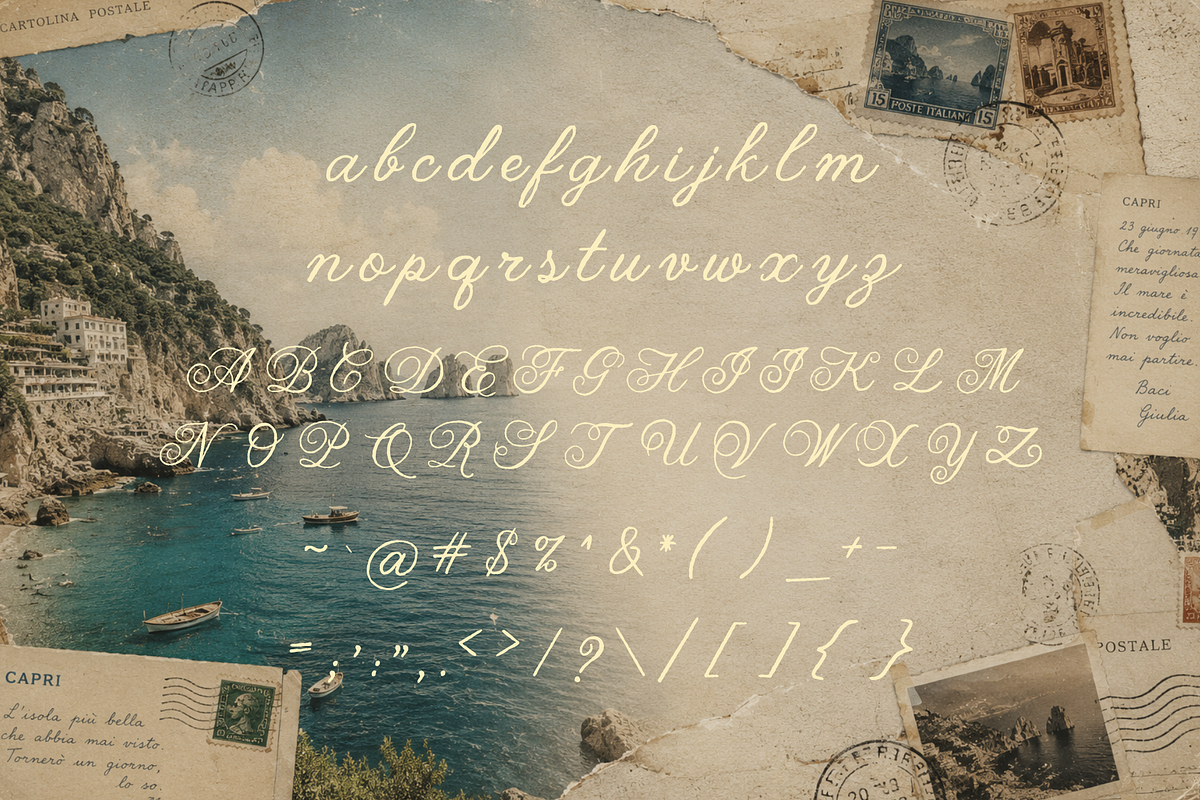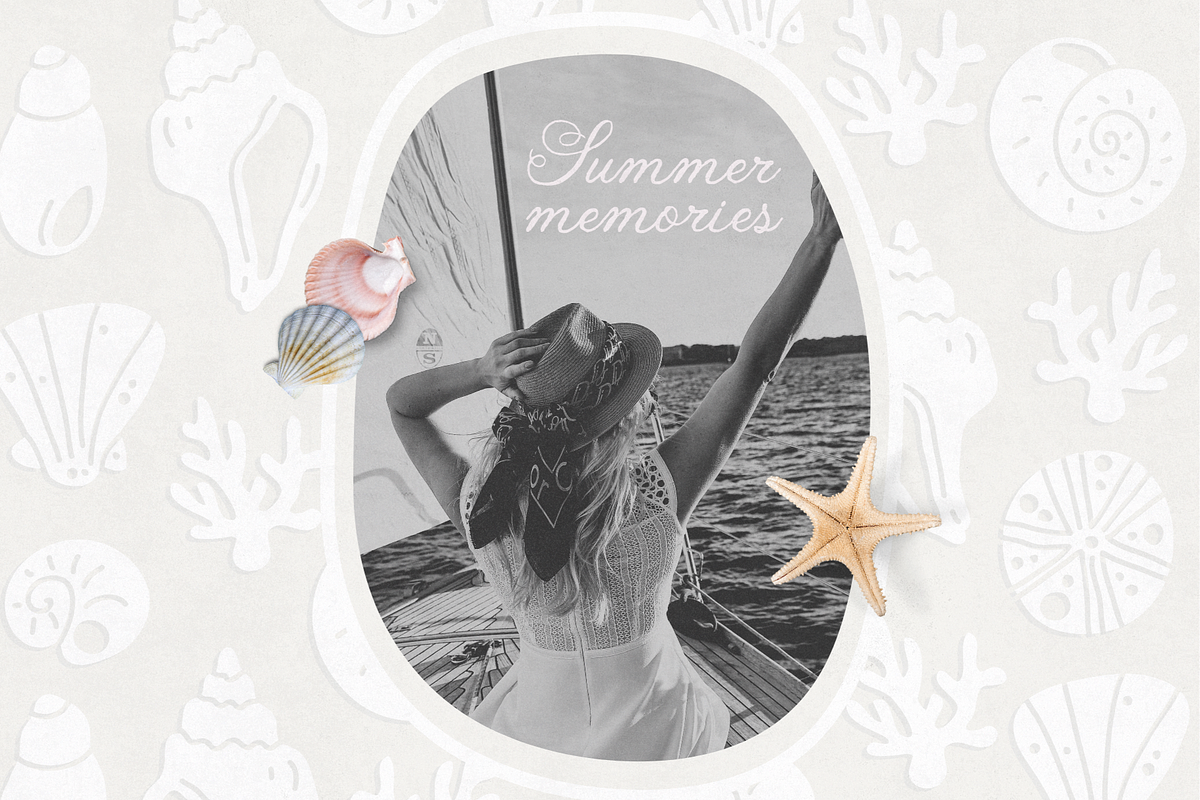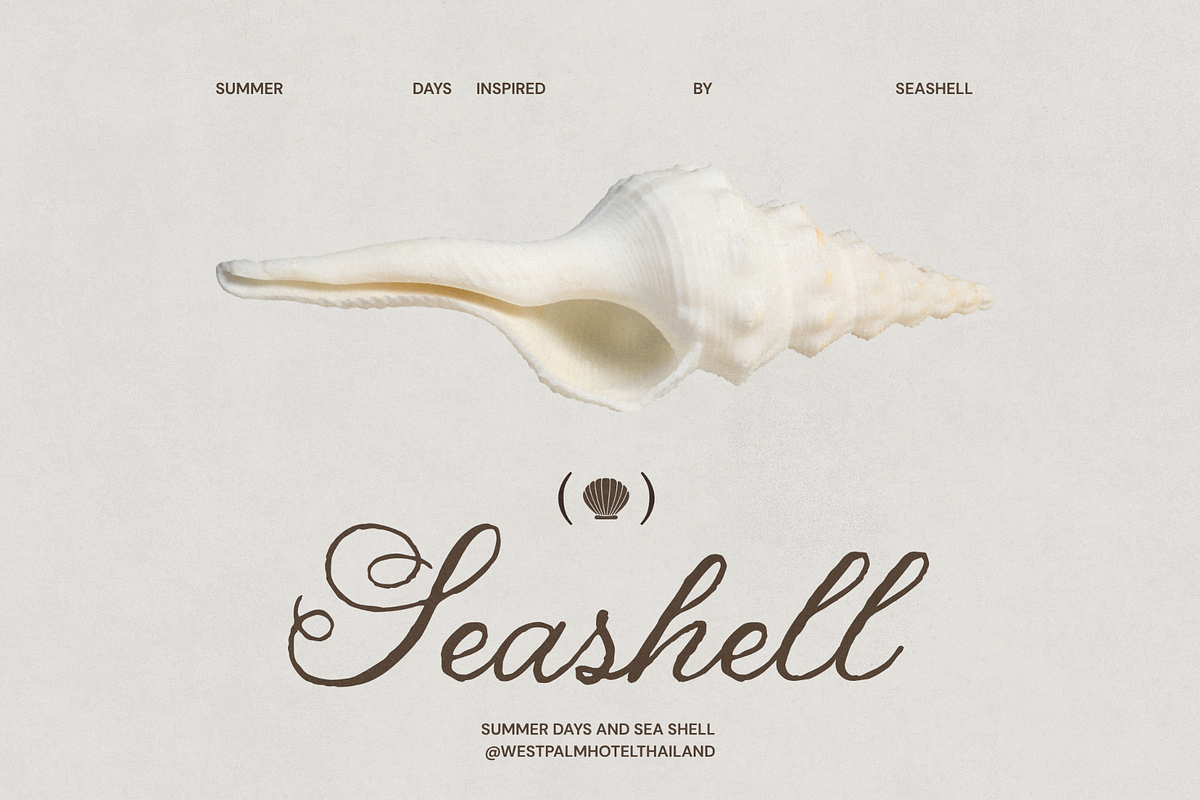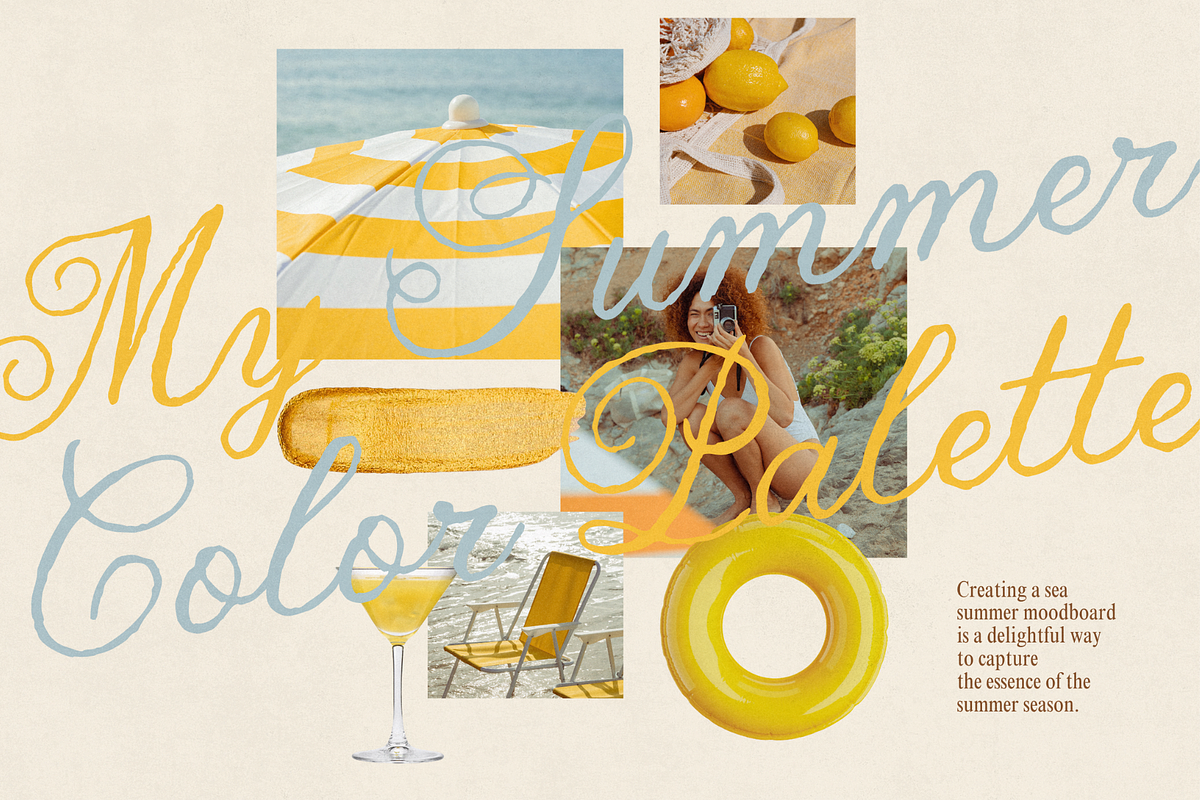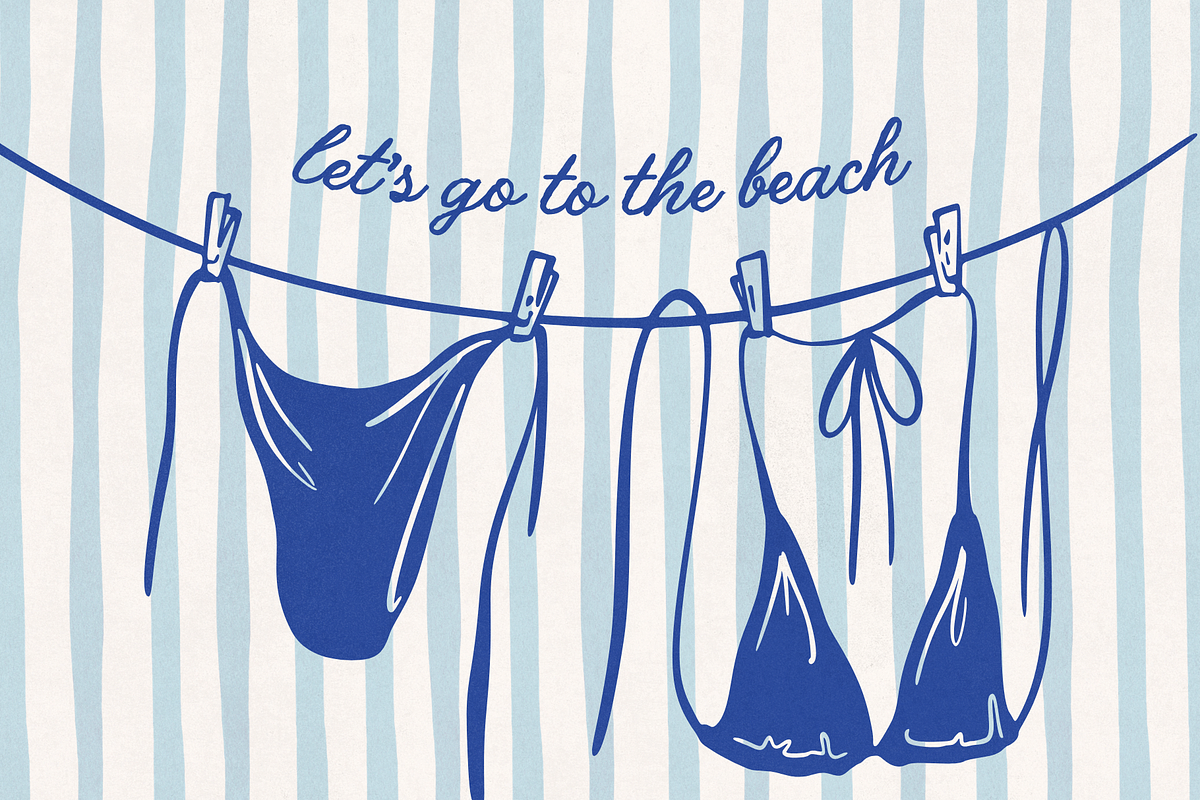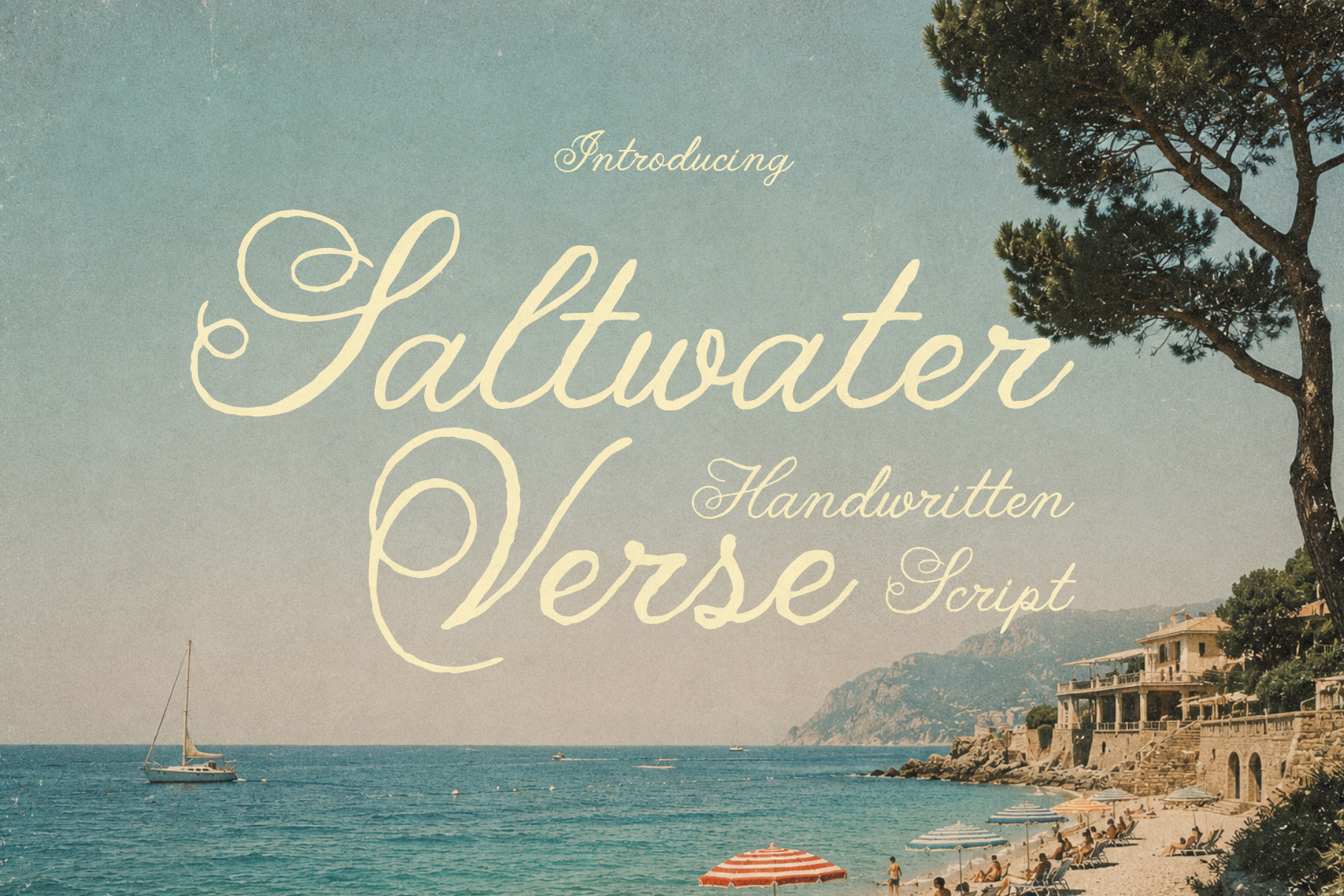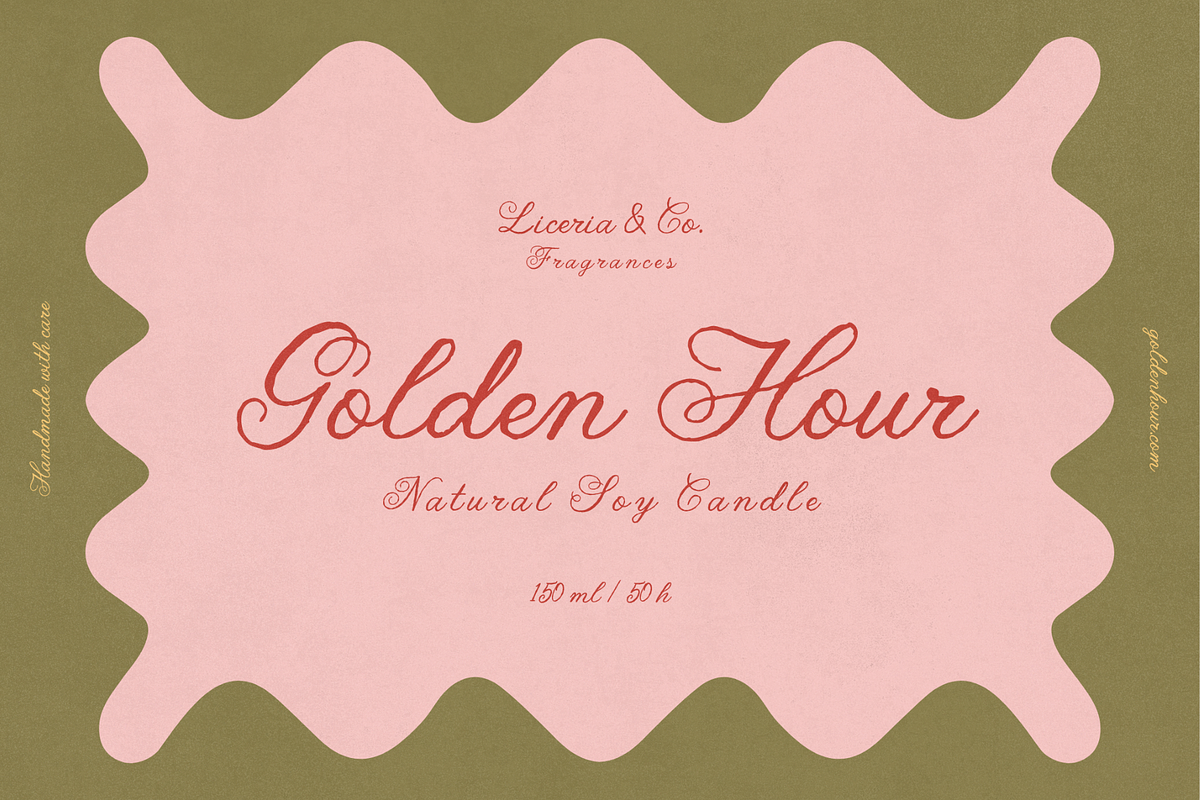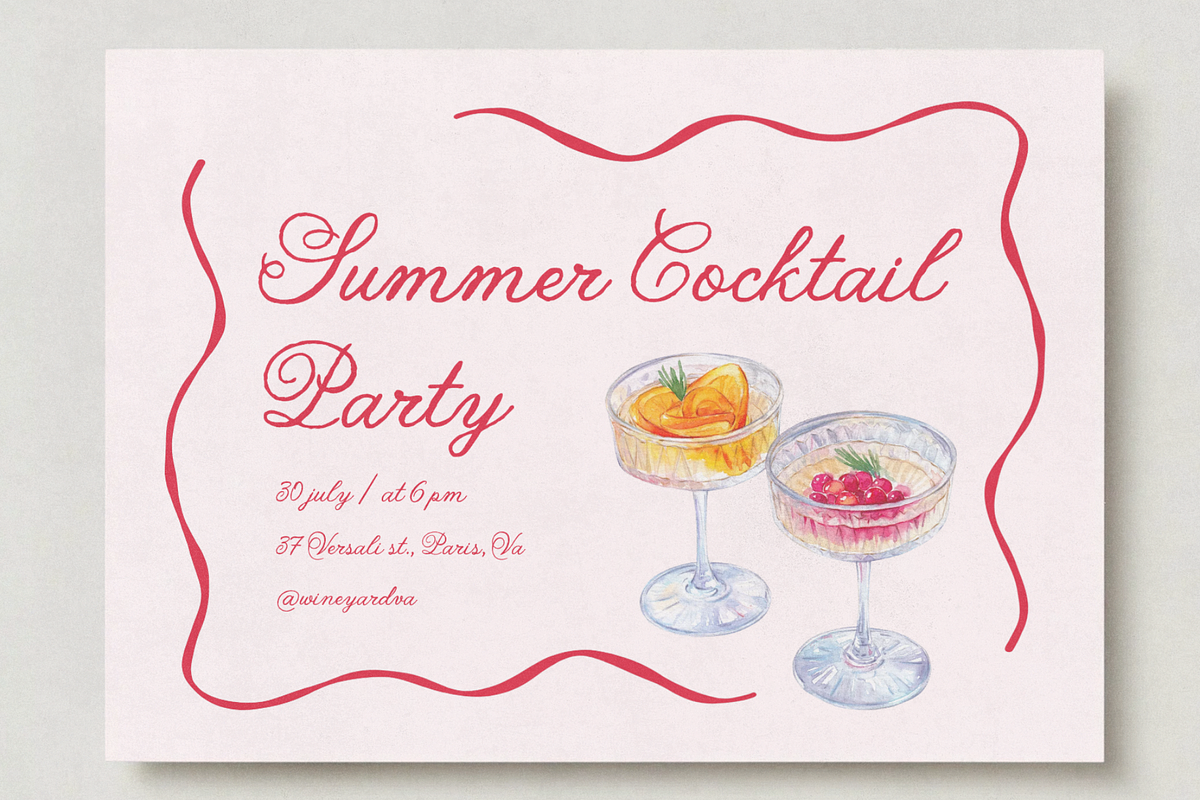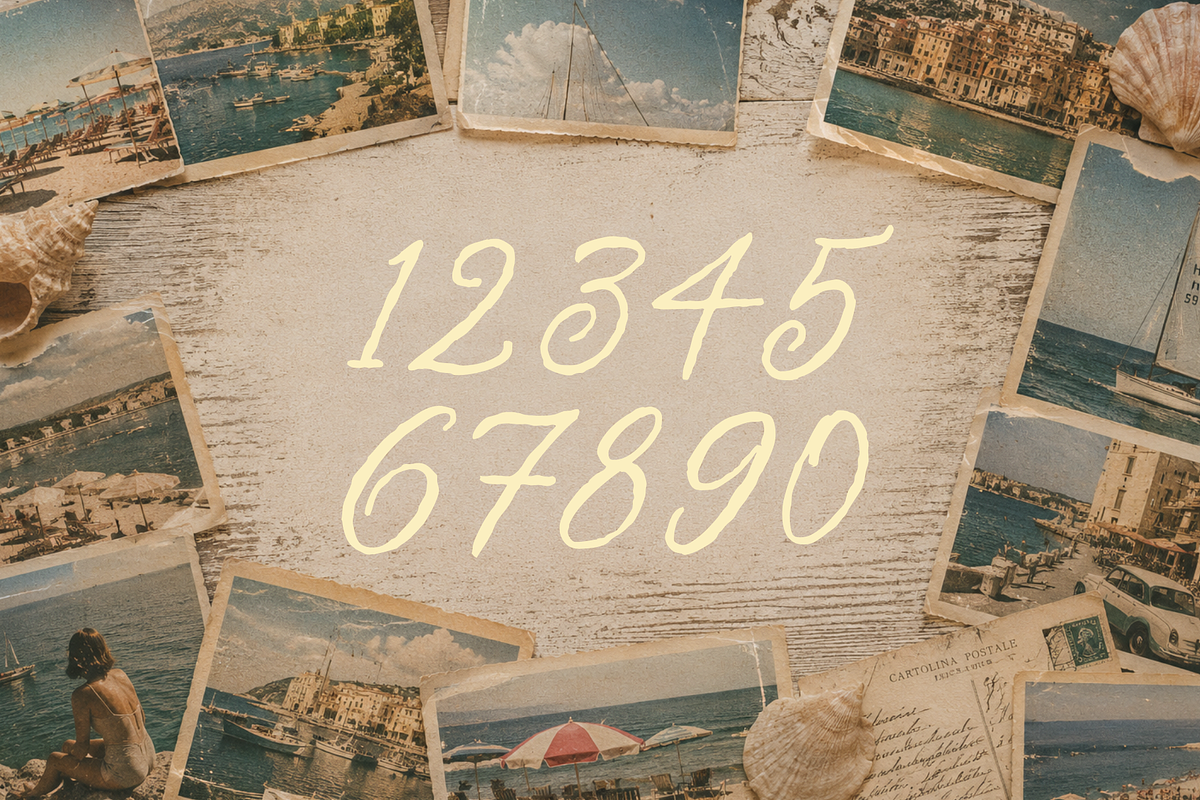
Saltwater Verse Vintage Script Font
Saltwater Verse is a vintage handwritten script font inspired by faded postcards, handwritten travel journals, sun-bleached beach photographs, and the timeless charm of Mediterranean summers. With its rough texture, imperfect strokes, and naturally weathered appearance, this typeface captures the feeling of memories preserved in old letters, forgotten travel diaries, and cherished seaside adventures.
Designed to bring warmth, authenticity, and character to your projects, Saltwater Verse features beautiful alternate characters that allow you to create more natural and expressive typography. The handcrafted details give every word a personal touch, making your designs feel genuine, nostalgic, and full of story.
Whether you're creating branding, packaging, logos, wedding invitations, travel posters, social media graphics, book covers, apparel, postcards, journals, café menus, beach-themed products, or vintage-inspired marketing materials, Saltwater Verse delivers a timeless handwritten aesthetic that instantly stands out.
The rough and imperfect nature of the font adds depth and personality, making it ideal for projects that require a handcrafted, vintage, coastal, or rustic feel. From European summer branding to nostalgic travel-inspired designs, Saltwater Verse helps you create work that feels both elegant and beautifully worn by time.
Uppercase & Lowercase Characters
Beautiful Alternate Characters
Multilingual Support (66 Languages)
Vintage Handwritten Style
Rough & Authentic Texture
Bring the romance of vintage travel, handwritten letters, and sun-soaked coastal memories into your designs with Saltwater Verse.